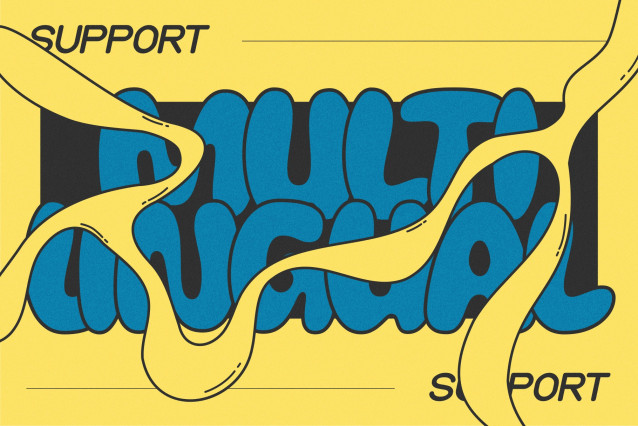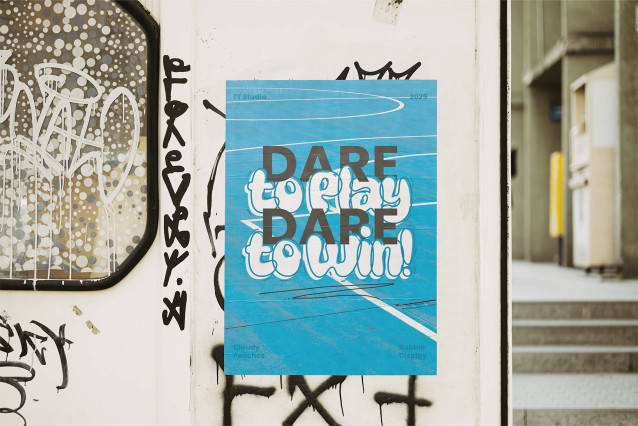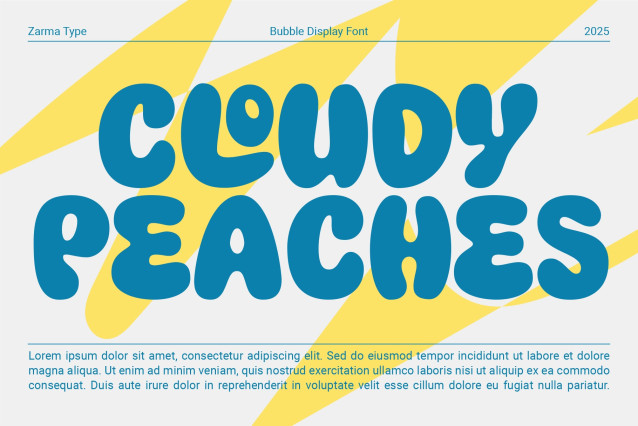
Cloudy Peaches Font
Cloudy Peaches Font is a playful bubble display font that brings a fresh splash of nostalgia and whimsy to your designs. With its bouncy character forms, rounded edges, and fluid connections, this typeface embodies a perfect balance between retro psychedelic vibes and contemporary design trends. Each letter appears to float and flow with a fun, carefree energy that instantly evokes feelings of joy and creativity.
Meticulously crafted for maximum visual impact, Cloudy Peaches features organic letterforms with playful alternates that add personality to every application. Its distinctive bubbly aesthetic works beautifully across various media, from music festival promotions to youth-oriented brands, creative projects, and digital content that aims to stand out with a touch of cheerful character.